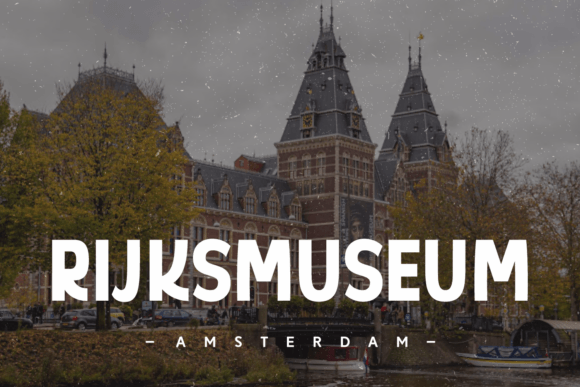
Introduction to Rolexsy Font
As a designer, you’ve likely spent countless hours scouring through design resources, searching for the perfect font to elevate your next creative project. But what happens when you stumble upon something that truly stands out from the crowd? That’s exactly what I experienced when I first laid eyes on the Rolexsy Font. Its sleek, modern design immediately caught my attention, and I knew I had to share it with the world.
With its clean lines and balanced proportions, the Rolexsy Font exudes sophistication, making it the ideal choice for contemporary projects and professional presentations. Whether you’re working on a branding campaign, crafting a compelling headline, or designing a website with a transparent background, this font is sure to impress.
What sets the Rolexsy Font apart from other high-quality fonts is its versatility and timeless aesthetic. It’s a valuable asset for designers, offering a level of elegance and refinement that’s hard to find in other design resources. And the best part? It’s available for free download, making it an accessible and affordable addition to your design arsenal.
Key Features of Rolexsy Font
Honest Review: Rolexsy Font
I recently came across the Rolexsy Font while searching for a high-quality design resource for a creative project. After trying it out, I wanted to share my honest thoughts on this font.
What works well: ✨ The Rolexsy Font offers a unique and stylish look, making it perfect for creative projects that need a touch of sophistication. The font is highly customizable, allowing designers to easily adjust the size, color, and style to fit their design needs. I also appreciated the transparent background, which made it easy to integrate into various design elements.
- Unique and stylish look
- Customizable
However, I did encounter some limitations: ⚠️ The font is not as versatile as some other design resources I’ve used in the past. Additionally, it can be a bit tricky to pair with other fonts, as the unique style can be overpowering. Overall, I would recommend the Rolexsy Font for designers looking for a high-quality, unique font for their creative projects.
The Rolexsy Font is a versatile design resource that can be used in a variety of creative projects. Some common use cases include:
- Graphic design and illustrations